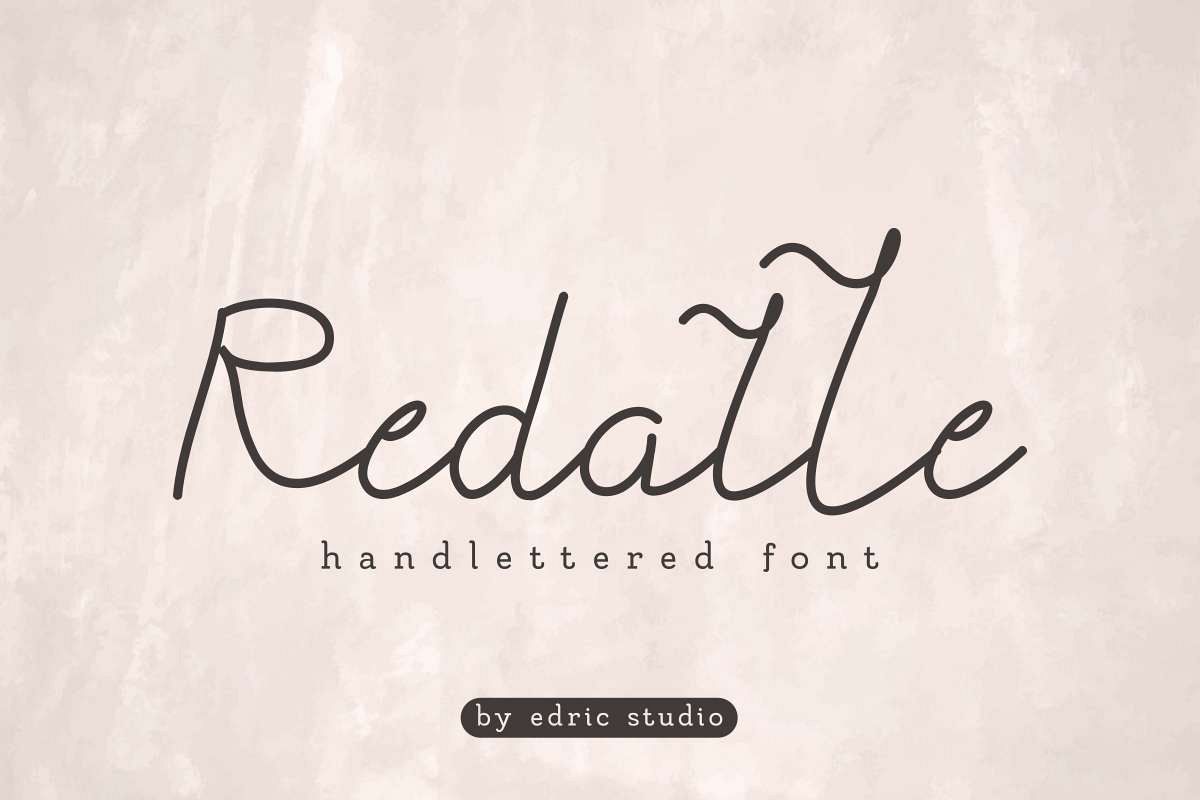
Redalle
Hi Guys, What’s up Everybody?This is EDRIC Studio, Please welcome! The newest font from our artists. A handwriting font : Redalle Monoline Font !Redalle is a handwriting font, handcrafted from our Studio here in, Indonesia. The artists/designers of this beautiful typeface is Saila.Redalle Monoline Font is a stunning handwriting script typeface with manual pen style. This font has a stunning characters set, perfectly managed with well spaced and kerning. The theme style of this font will elegant,  vintage, stylish and sophisticated style. You wont find any where else, the font like Redalle Monoline Font.Redalle Font will be good for any projects including : branding, logo, stationery, business card, signage, flyer, brochure etc. Almost all industries will be match for this typeface: wedding, events, real estate, architect, law firm, florist, gardening, makeup artist, travel, hotel, musician etcHere’s what you’ll get on the zip pack :